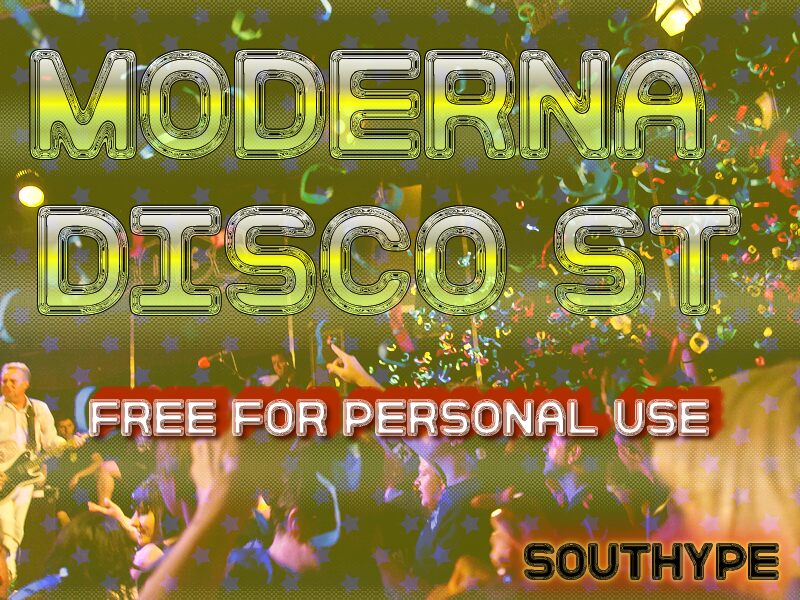
Moderna Disco is a bold, groovy display font that radiates a captivating retro-inspired vibe. Designed by Southype, this typeface boasts a striking visual aesthetic, with its playful curves and dynamic letterforms evoking a sense of lively energy. Moderna Disco's versatility shines through, making it a suitable choice for a wide range of applications, from charitable campaigns and school newsletters to independent YouTube videos and university materials. Its distinctive character and engaging style can elevate the visual impact of any project, adding a touch of vintage flair and contemporary charm.
This font's unique attributes and generous usage permissions make it a valuable asset for designers, educators, and content creators seeking to infuse their work with a dose of retro-chic charm. Its bold presence and groovy sensibilities lend themselves well to a diverse array of design contexts, allowing users to captivate their audiences with a visually striking and memorable typographic experience.